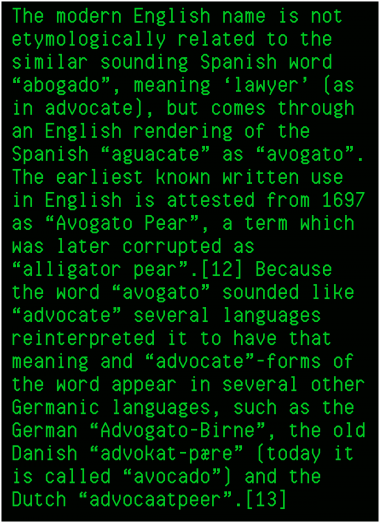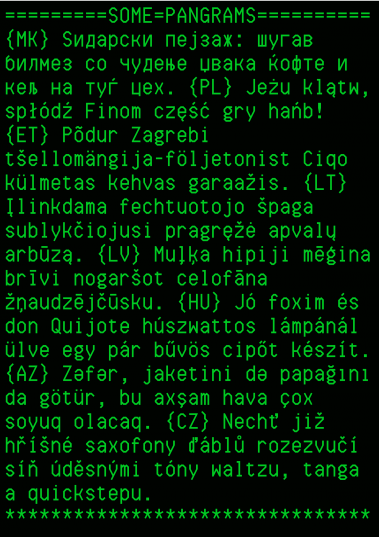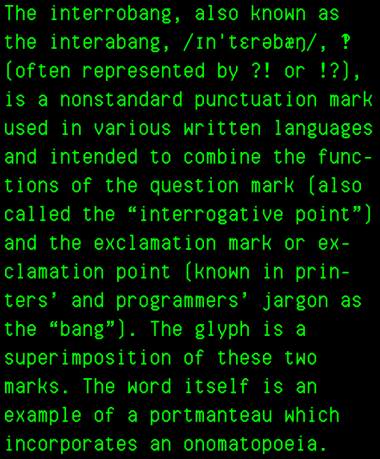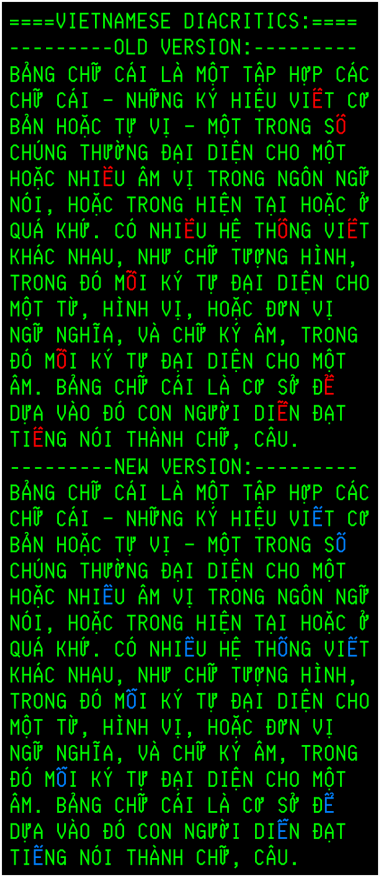
Who says it's boring? ;) This is a great, highly usable monospaced design! Bonus points for the
extra languages. I love the &, too!
I don't download a lot of FontStructions, but this one is really worth it.
Above example is something I learned today about the "alligator pear" (source: http://en.wikipedia.org/wiki/Avocado#Etymology)
This is quite awesome. The black/white contrast is very well managed.
And thank you all for the nice words :) It makes me want to show off with these pangrams:
Nice super legible sans serif font, suitable for programmers, as the demo pics hint. Great language support. 10/10
Now supports Cherokee and Armenian :)
Added some "spacing modifier letters" (to use with IPA), and some "general punctuation", including the double dagger, the interrobang and the asterism!
Just finished the "Phonetic Extensions", "Phonetic Extensions Supplement" and "Number Forms" blocks. *Phew!* Also, I filled the the Runic block a while ago, and I am currently working on the currency symbols.
I have fixed the Vietnamese diacritics. I have made it so the top diacritic is to the right, when they can't be above eachother on the capitals. I think that is more acceptable than the other way around.
This project just getting better and better. Kudos for your perseverance.
The romanization of Vietnamese goes back to the late 19th century, thanks to the influence of French catholic/Jesuit missionaries. It is one of the most heavily accented Latin alphabets in use. Still, a lot easier than the modified Chinese writing they've use before.
Reminds me of Inconsolata
I looks similar to LL Plot